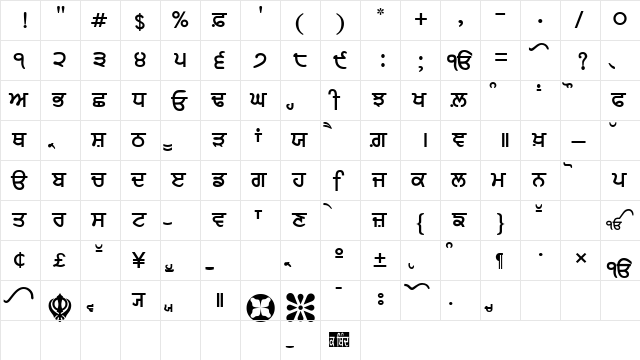
AmrLipiHeavy Regular Font Preview
AmrLipiHeavy Regular
AmrLipiHeavy Regular Font Details
Design Context for AmrLipiHeavy Typeface
AmrLipiHeavy takes a measured approach to typography — its balanced proportions and neutral character make it a reliable workhorse for both digital and print work.